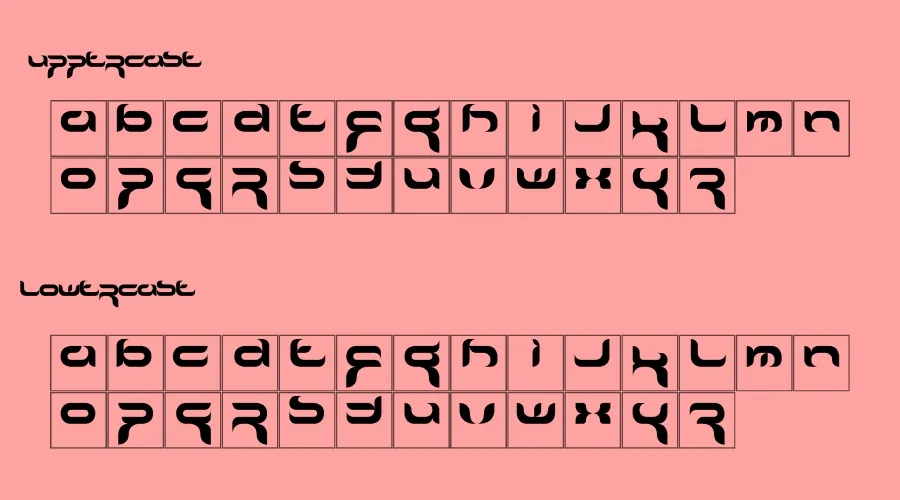
Crafty Font
About Crafty Font
The Crafty Font is a techno various texture family and was invented by a well-known typographical-making studio named Eternal Maelstrom Studios. You may get it free from here with a unique texture look appearance for the visitors.
This font has also an online generator tool, in which you can easily convert all your normal fonts into contemporary forms. It is an excellent choice for CSS, CDN, and adobe photoshop. This font can easily be utilized with Rock Font and make modern projects.
It contains unique types of characters such as small letters, capital letters, digits, and many more. This font is available in regular styles with outstanding structures of alphabet set.